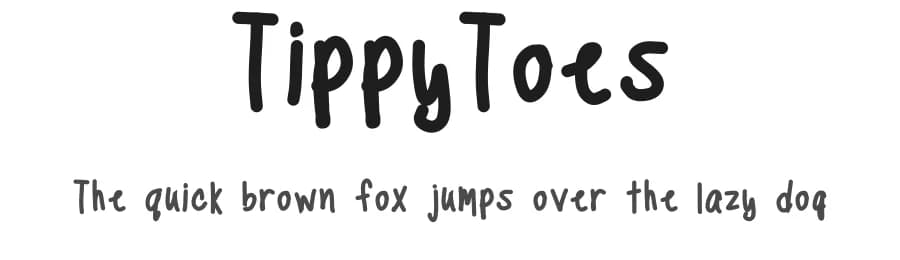
About TippyToes Font
TippyToes is a script & handwritten font designed by Emily Spadoni. It includes 246 glyphs, a bold weight, TTF (TrueType) format, and 209 languages. TippyToes is free to download; check the license details on this page before commercial use. Script & handwritten fonts like TippyToes work best for wedding invitations, greeting cards, signatures, and elegant branding.
TippyToes Font is a script font that shines as a display or heading face. Pair it with a clean sans-serif or serif font for body text β the contrast creates a clear hierarchy while the two styles stay balanced and easy to read.
TippyToes Font
TippyToes Font is a script handwritten typeface by Emily Spadoni, ideal for logos, invitations, branding, and creative projects.